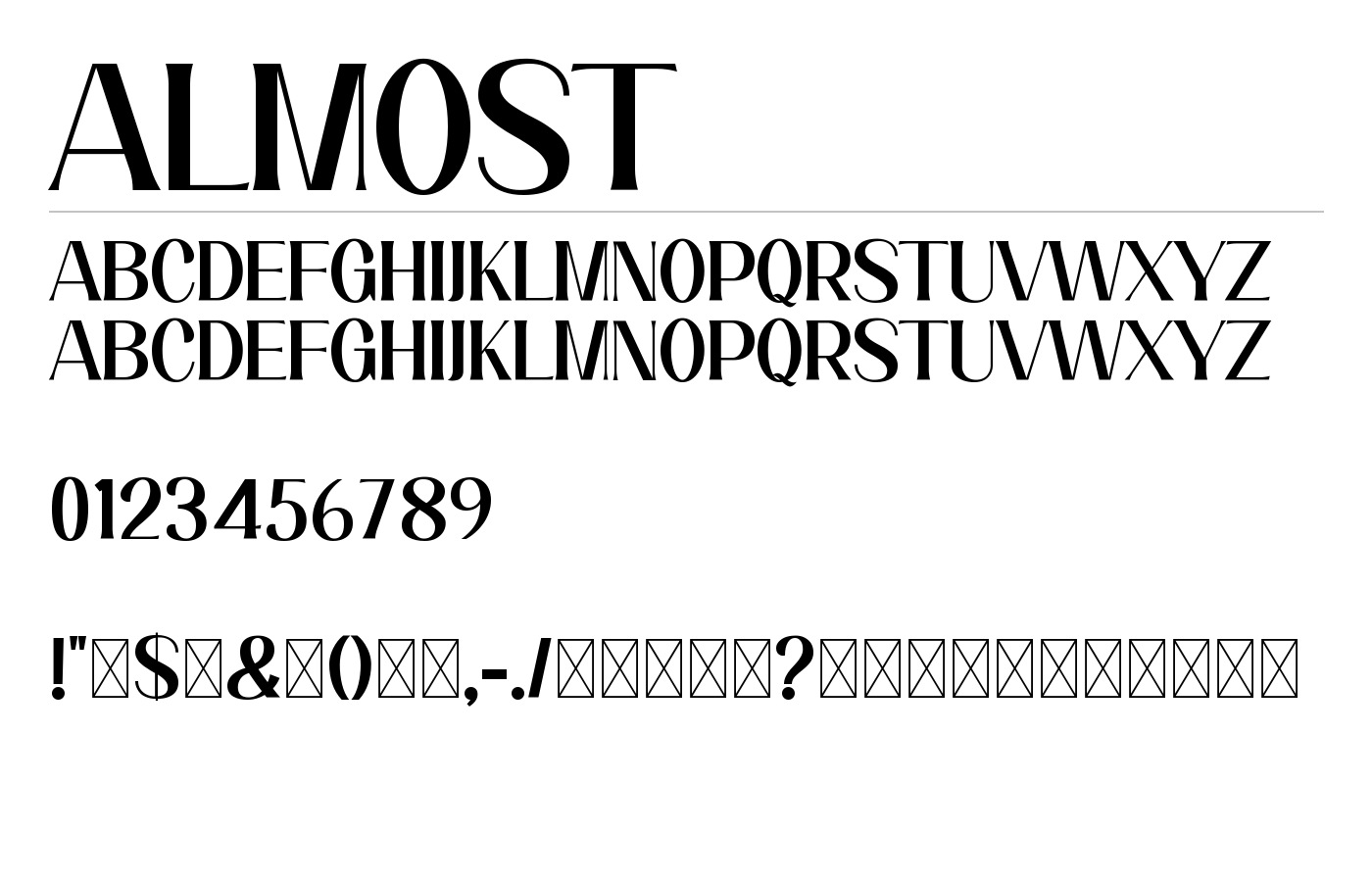
Almost Font is a stylish serif typeface that features strong contrast between thick and thin strokes, giving it a sophisticated and elegant feel. Its narrow, tall letterforms with sharp serifs make it ideal for luxury branding, editorial headlines, and high-end packaging where a refined yet modern look is desired. This font stands out in display settings, lending a sense of exclusivity and timeless charm to any design.
Almost Font
About Almost Font
| Font family | Almost Font |
| Designer | Usman Albaehaqi |